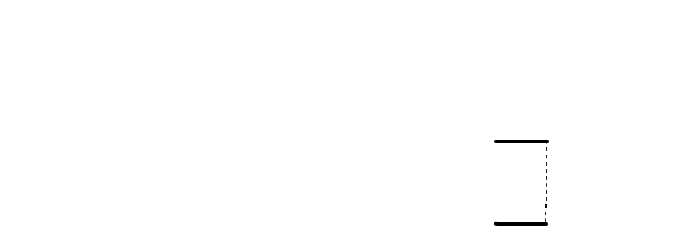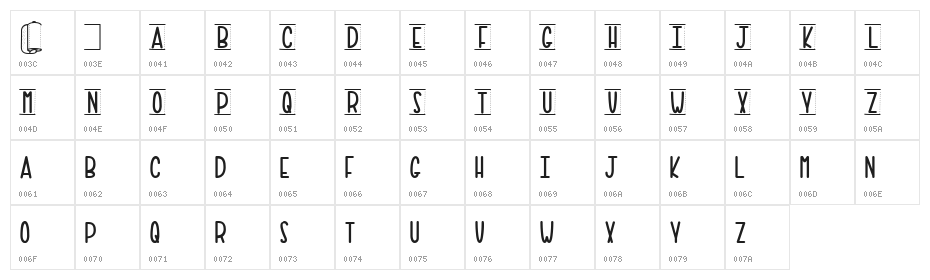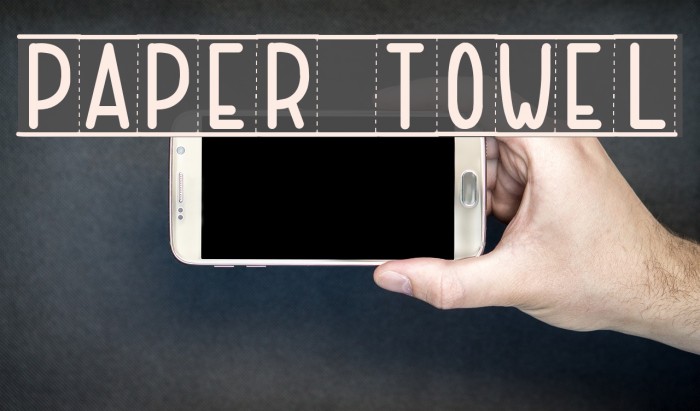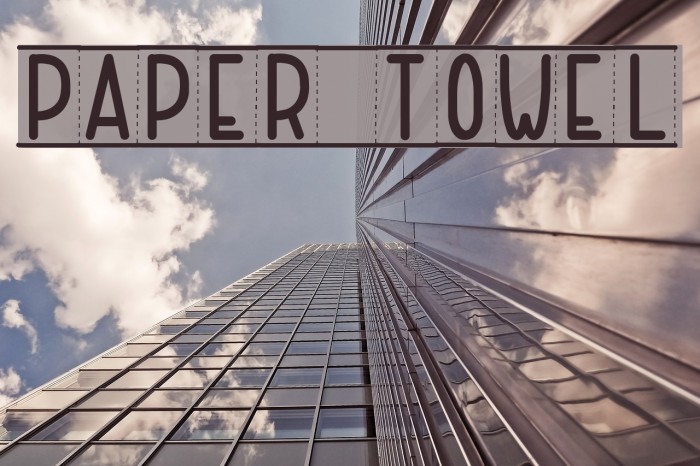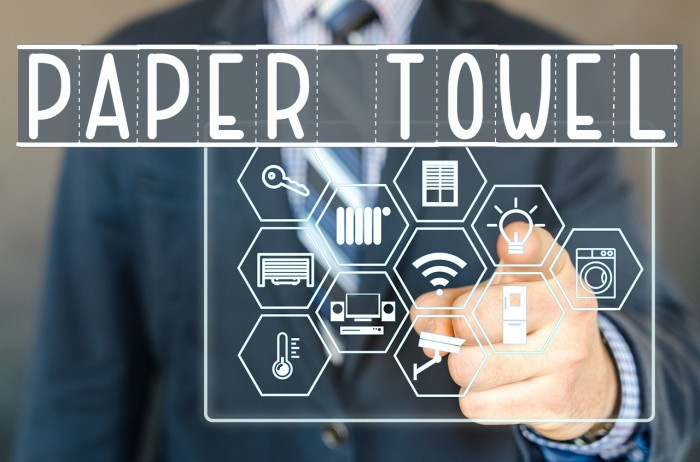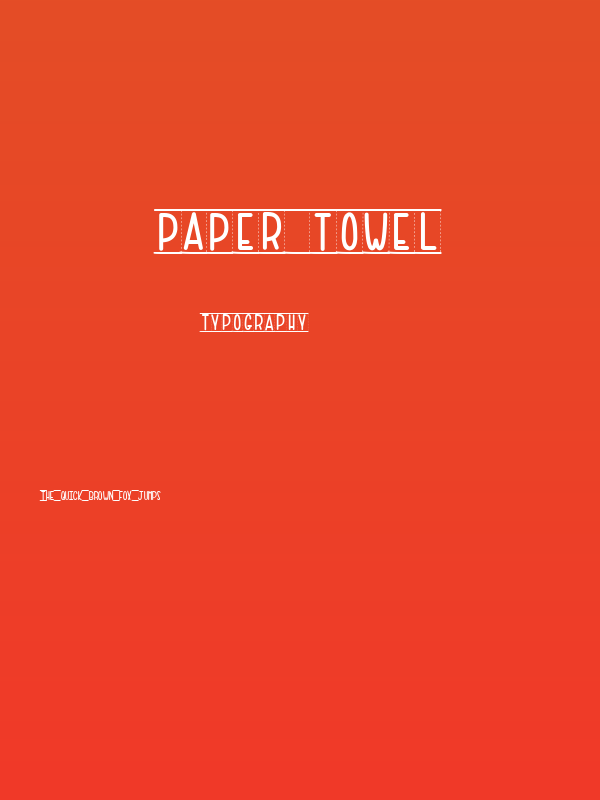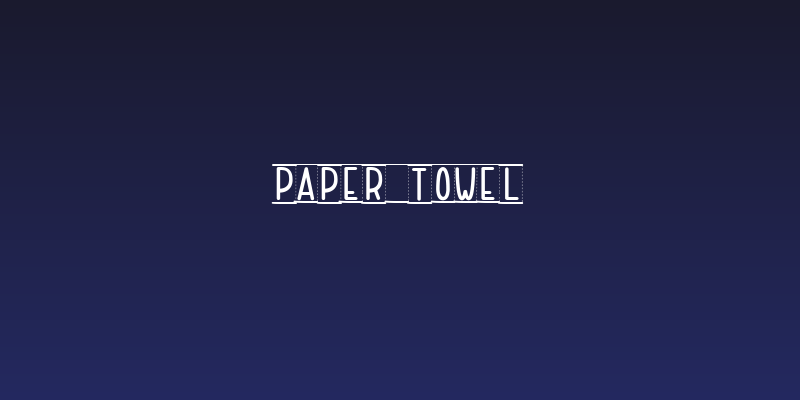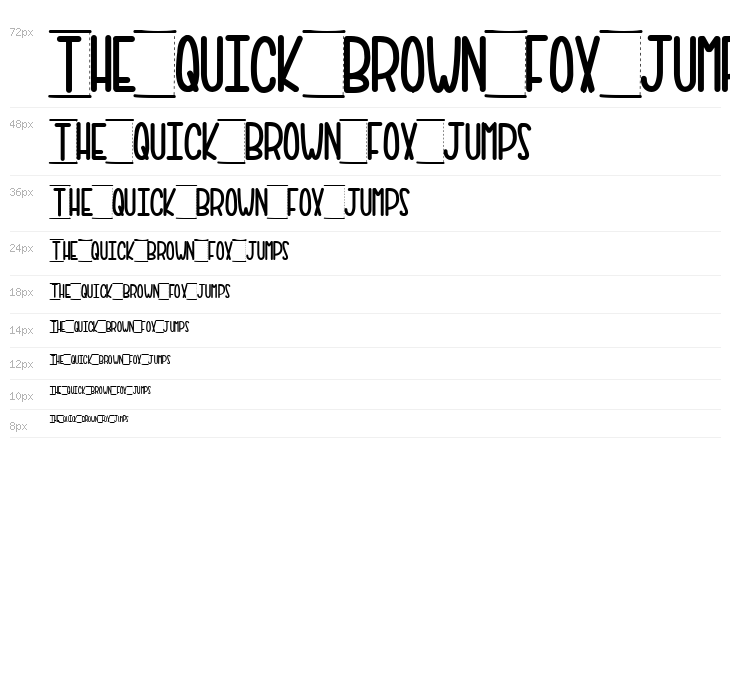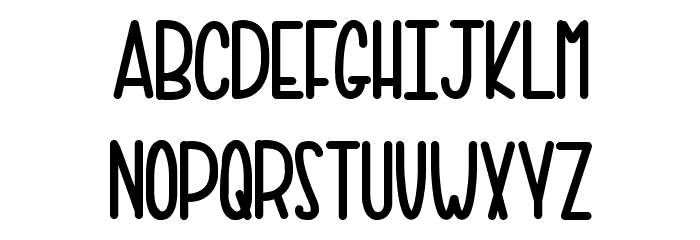
PAPER TOWEL Font
PAPER TOWEL Description
This font features a playful and casual style with rounded edges and a hand-drawn appearance. The uppercase letters are tall and narrow, giving a sense of height and elegance, while the lowercase letters maintain a consistent flow with slightly exaggerated curves. The overall look is friendly and approachable, making it suitable for informal and creative projects. The characters are evenly spaced, ensuring readability and balance across different text sizes. This font exudes a sense of fun and creativity, perfect for projects that aim to convey a lighthearted and whimsical tone.
| Proposed Projects | Ideal for children's books, greeting cards, playful branding, and casual invitations. |